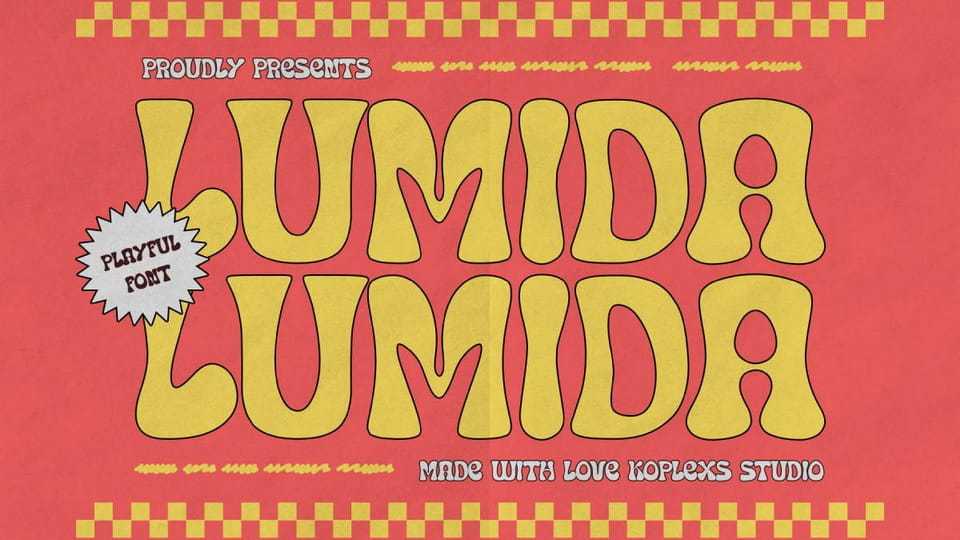
Download Lumida font, a stylish and playful groovy typeface inspired by the nostalgic energy of the retro 70s era, designed with smooth honey-like curves and bold rounded forms.
Designer: Koplexs Studio